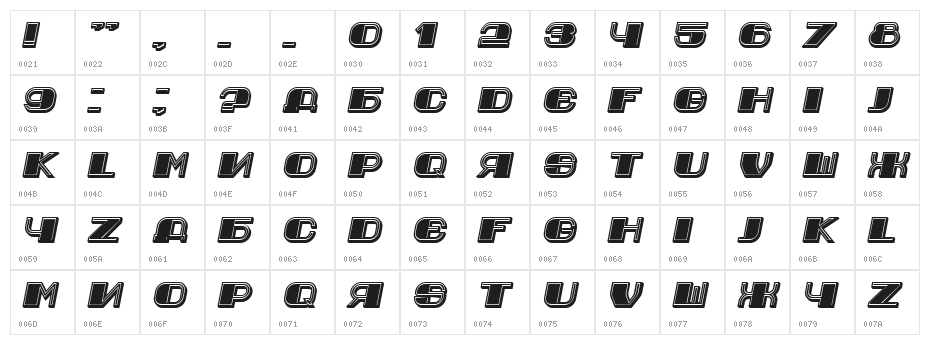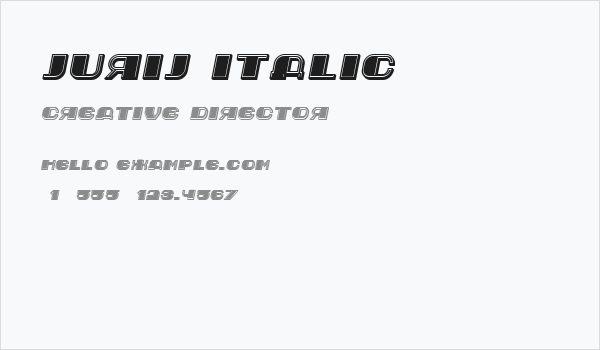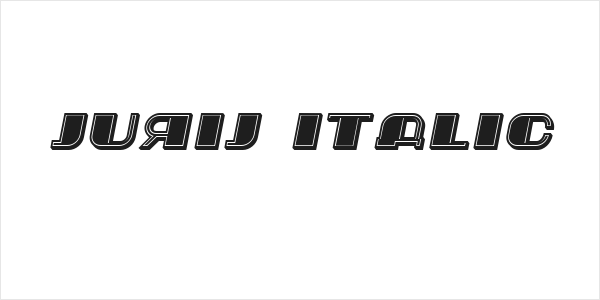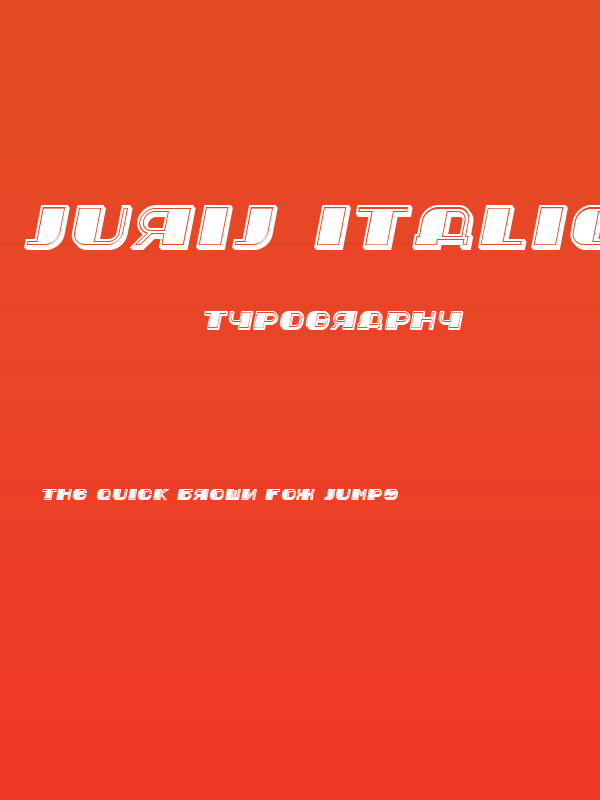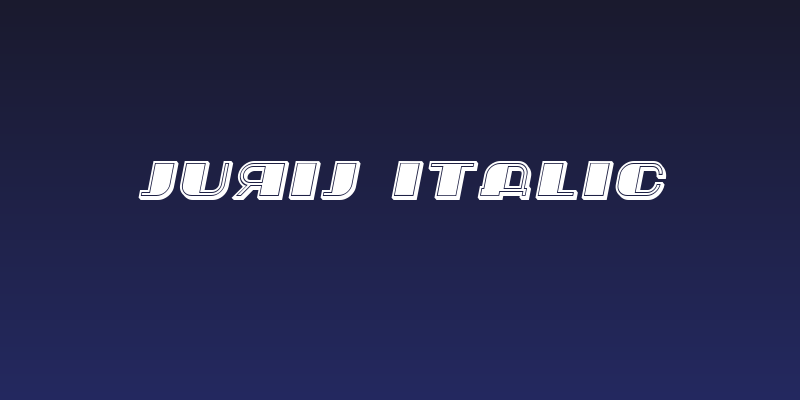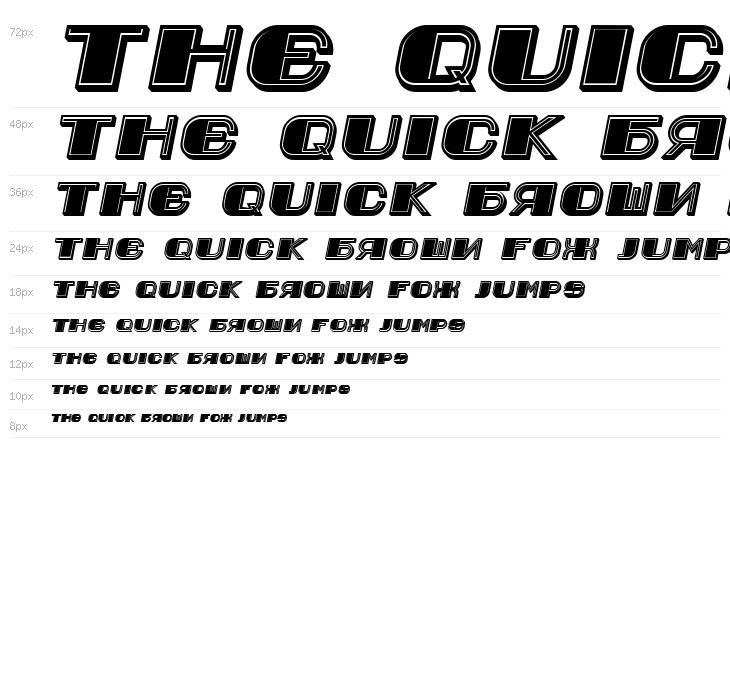
Jurij Italic Font
Jurij Italic Description
This font features a bold, italicized style with a distinct outline that gives it a three-dimensional appearance. The characters are uppercase Cyrillic and Latin, with a consistent slant that adds dynamism and movement. The numbers and special characters maintain the same bold and outlined style, ensuring uniformity across all glyphs. The font's design is modern and eye-catching, making it suitable for attention-grabbing headlines or titles. Its unique style is characterized by a strong presence and a sense of depth, achieved through the use of thick outlines and italicization.
| Proposed Projects | Ideal for posters, logos, and branding materials that require a bold and modern look. |